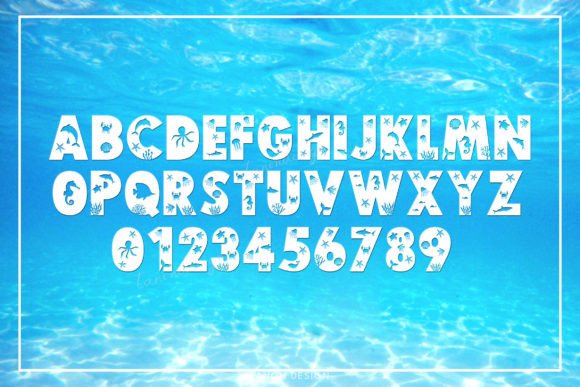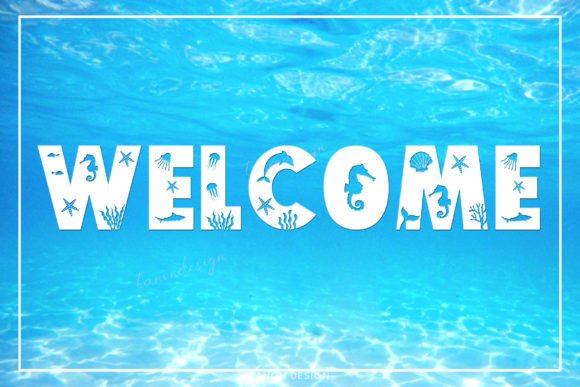
Ocean Animal World Font
Ocean Animal World is a cute and beautiful decorative font. It will look fantastic on all your project designs including t-shirt designs, mug designs, digital designs, crafts, cards, and any projects!